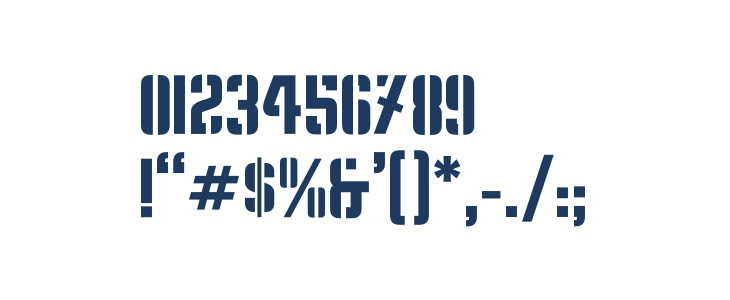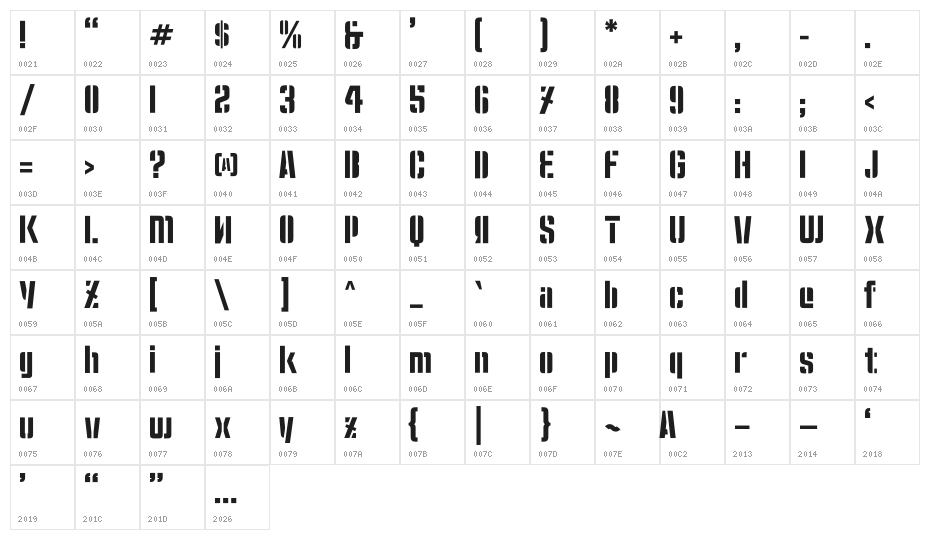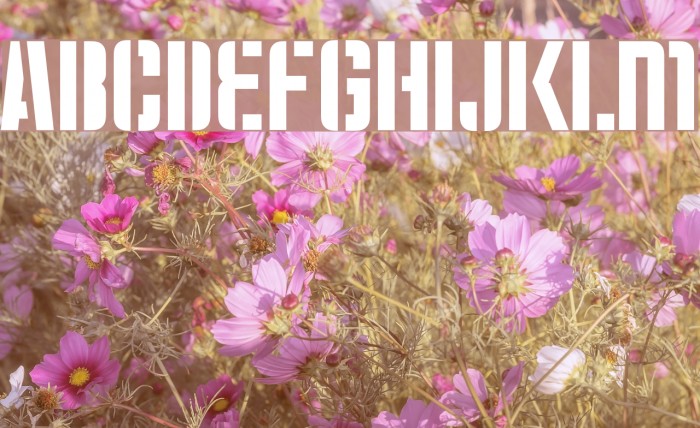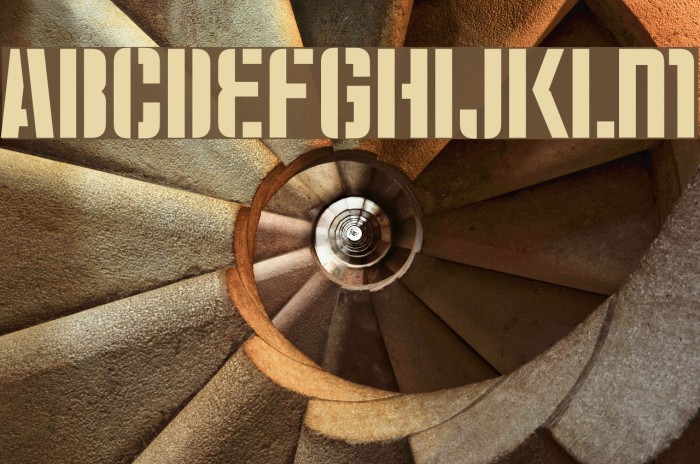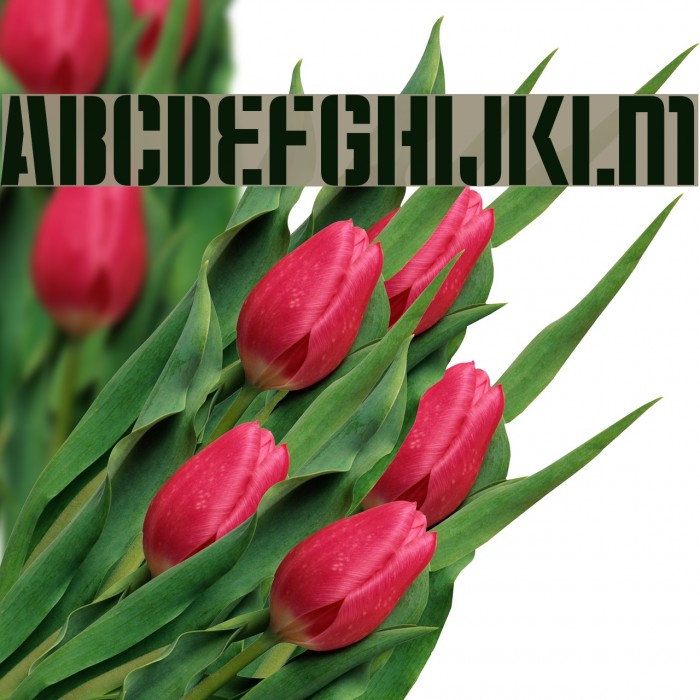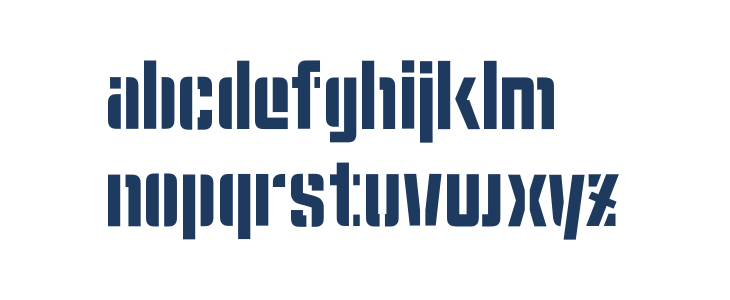
Moshka-Stencil Font
Moshka-Stencil Description
This font features a bold, stencil-like design with strong geometric shapes and high contrast between thick and thin strokes. The characters are distinct with sharp angles and a modern, industrial feel. The uppercase and lowercase letters maintain a consistent style, with the stencil effect creating a sense of separation within each character. The numbers and special characters follow the same bold, structured design, making the font highly suitable for impactful visual statements. Its unique style is both eye-catching and functional, ideal for projects that require a strong, authoritative presence.
| Proposed Projects | Ideal for branding, posters, signage, and any project requiring a bold, impactful typeface. |